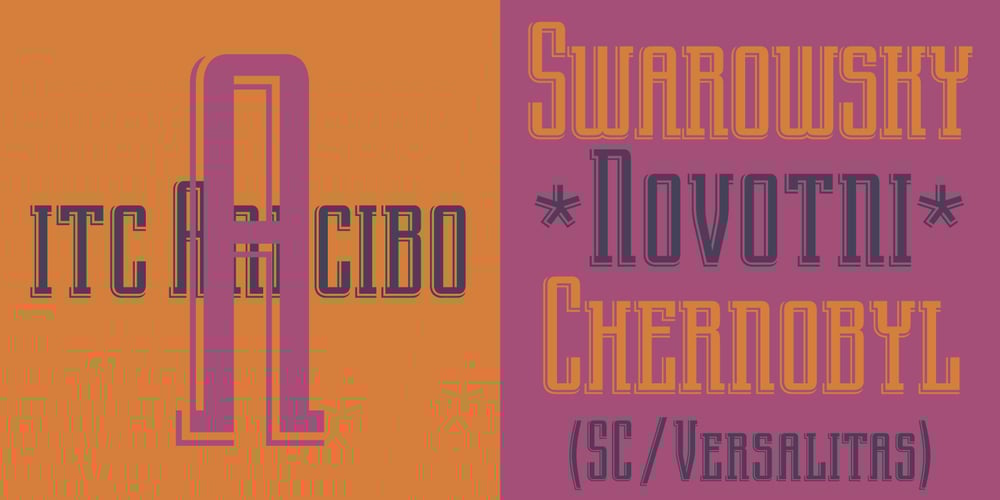
ITC Arecibo Font Family was designed by Luis Siquot and published by ITC. ITC Arecibo contains 2 styles and family package options. In ITC Arecibo, Argentinean type designer Luis Siquot has created a typeface of subtle typographic turns. At first glance, ITC Arecibo has a sturdy 19th century wood type flavor, yet the delicate hairline shadow is decidedly Art Deco. Its condensed proportions and character shapes have been carefully modeled to ensure legibility.Siquot added uniqueness and versatility to the face by drawing two sets of small caps: one in which the central horizontal strokes share the same plane (ITC Arecibo) as those in the full-size letters, and another where the horizontal strokes are proportional with the small caps(ITC Arecibo Too).Another intriguing subtlety is what Siquot calls the “soul of the face,” the distinctive highlight/shadow. “This ambiguous line is an effect I have wanted to incorporate into a design for some time,” says Siquot. “Is it a black hairline that surrounds the letters, or a white line incised into the left and bottom of strokes?”ITC Arecibo and ITC Arecibo Too: distinctive, powerful and economical of space. What more could you ask from a headline face?